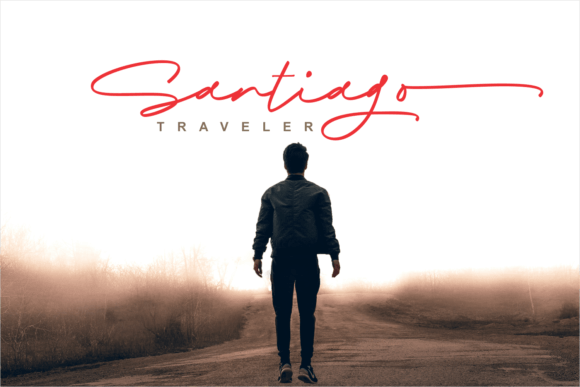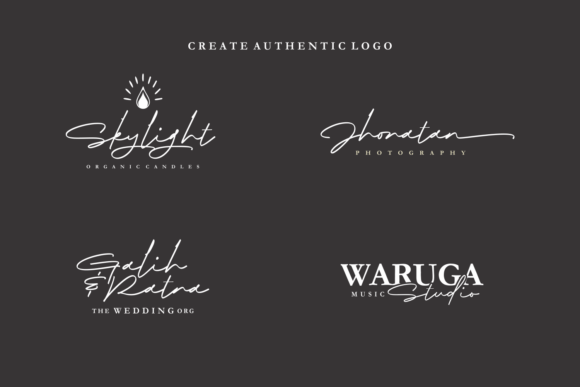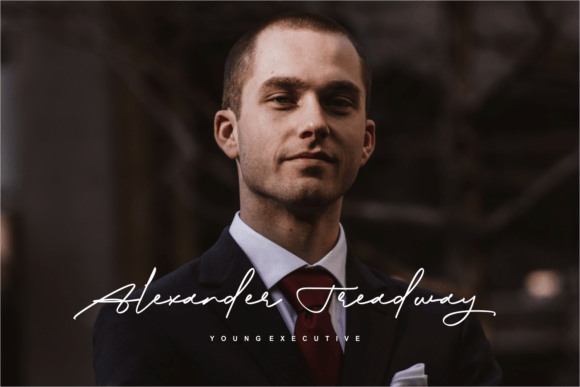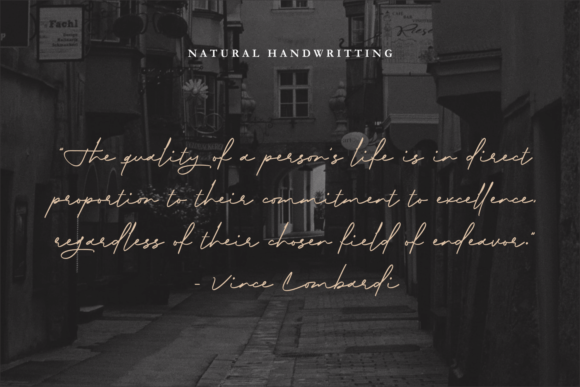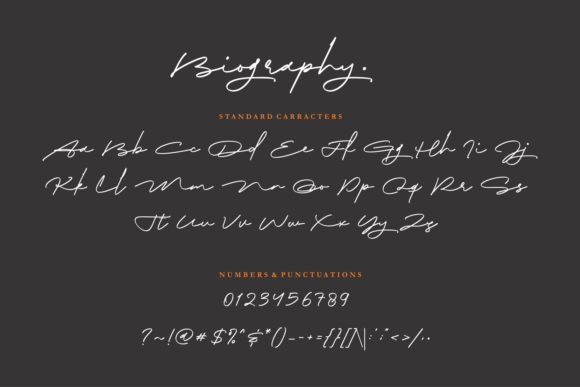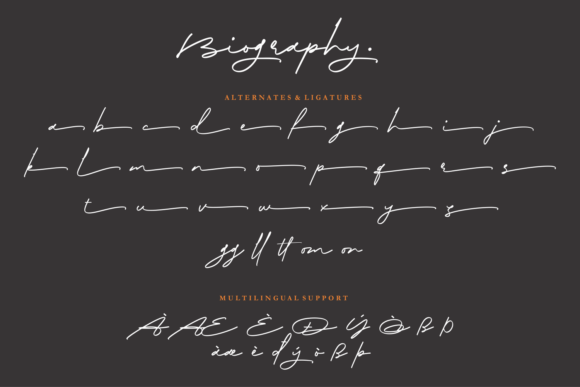
Biography Font: The Perfect Handwriting Font for Creative Projects
Are you a designer or crafter looking for a font that adds a personal touch to your projects? Look no further than Biography Font! This beautiful handwriting font is perfect for a wide range of creative projects, from branding and logos to wedding designs and social media posts.
What is Biography Font?
Biography Font is a stylish and elegant handwriting font that is designed to give your projects a personal and unique touch. With its flowing script and cursive letters, this font is perfect for adding a touch of sophistication and whimsy to your designs.
What Can I Use Biography Font For?
Biography Font is a versatile font that can be used for a wide range of creative projects, including:
- Branding projects: Use Biography Font to create a unique and memorable brand identity that sets you apart from the competition.
- Logos: Create a stunning logo that showcases your brand’s personality and style with Biography Font.
- Wedding designs: Add a touch of romance and elegance to your wedding designs, including invitations, stationery, and decorations.
- Social media posts: Make your social media posts stand out with Biography Font, perfect for creating eye-catching graphics and quotes.
- Advertisements: Use Biography Font to create attention-grabbing ads that showcase your brand’s personality and style.
- Product packaging: Add a personal touch to your product packaging with Biography Font, making your products stand out on store shelves.
- Product designs: Use Biography Font to create stunning product designs, including labels, tags, and packaging inserts.
- Photography: Add a watermark or overlay to your photos with Biography Font, giving them a professional and stylish touch.
- Invitations: Create beautiful and unique invitations for any occasion, from weddings to birthday parties.
- Stationery: Use Biography Font to create stylish and elegant stationery, including notebooks, journals, and greeting cards.
Why Choose Biography Font?
There are many reasons why Biography Font is the perfect choice for your creative projects:
- Unique and personal touch: Biography Font adds a unique and personal touch to your projects, setting them apart from the competition.
- Elegant and sophisticated: This font is elegant and sophisticated, making it perfect for high-end branding and design projects.
- Easy to read: Despite its cursive nature, Biography Font is easy to read, making it perfect for body text and captions.
- Versatile: Biography Font can be used for a wide range of creative projects, from digital designs to print materials.
Tips for Using Biography Font
Here are some tips for getting the most out of Biography Font:
- Use it sparingly: Biography Font is a statement font, so use it sparingly to add emphasis and personality to your designs.
- Pair it with other fonts: Pair Biography Font with other fonts to create a unique and interesting contrast.
- Experiment with colors: Biography Font looks great in a range of colors, so experiment with different hues and shades to find the perfect look for your project.
Biography Font is a beautiful and versatile handwriting font that is perfect for a wide range of creative projects. With its elegant and sophisticated style, this font is sure to add a personal touch to your designs. Whether you’re a designer, crafter, or DIY enthusiast, Biography Font is a must-have font for any project that needs a touch of handwriting style.